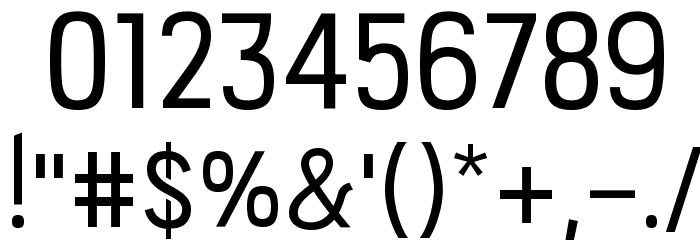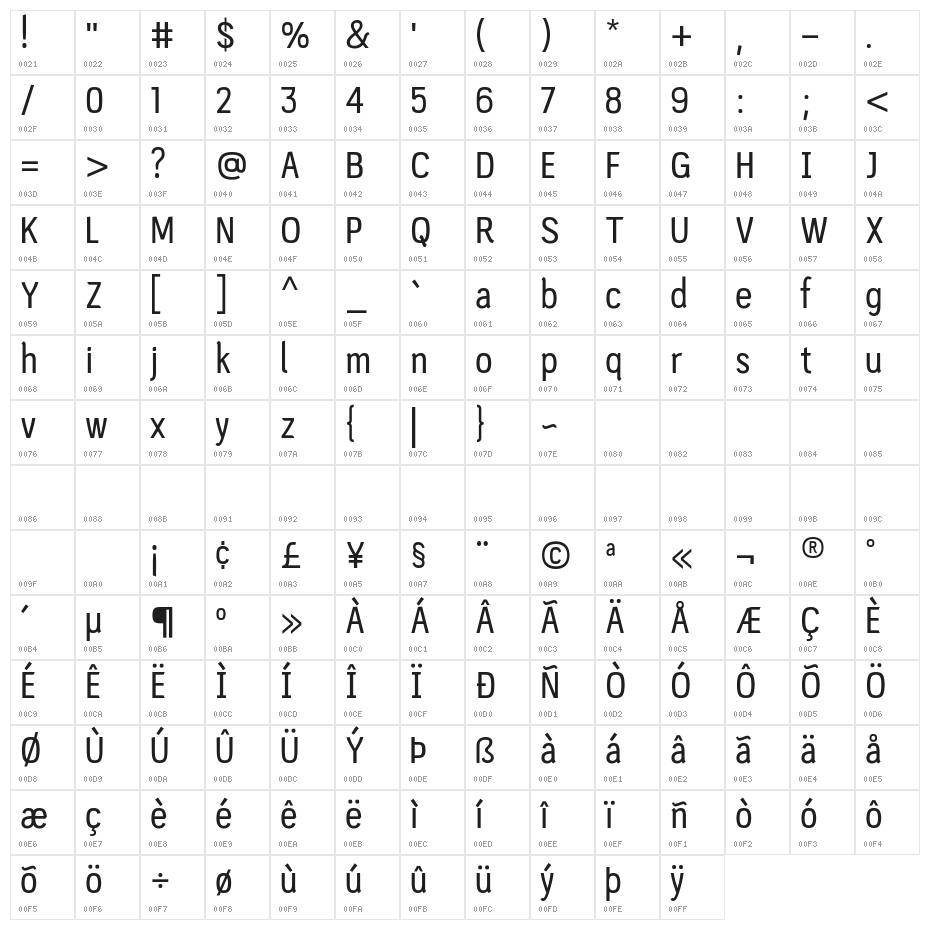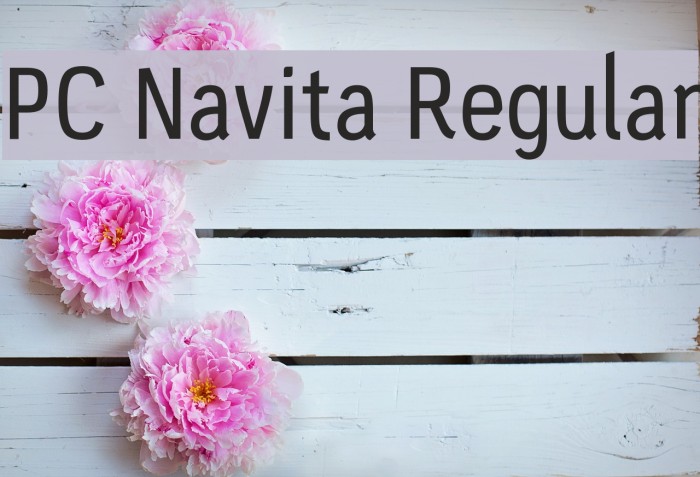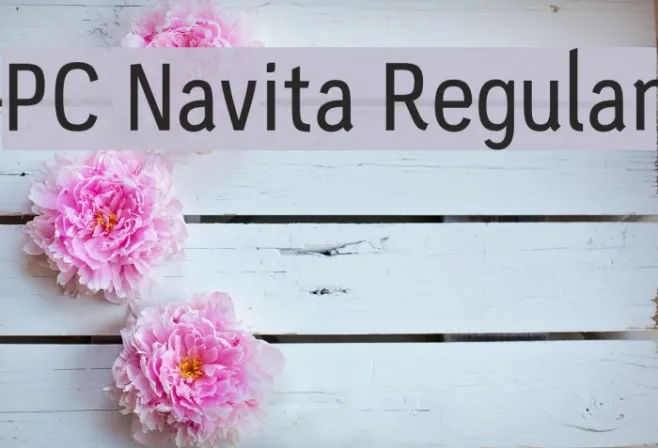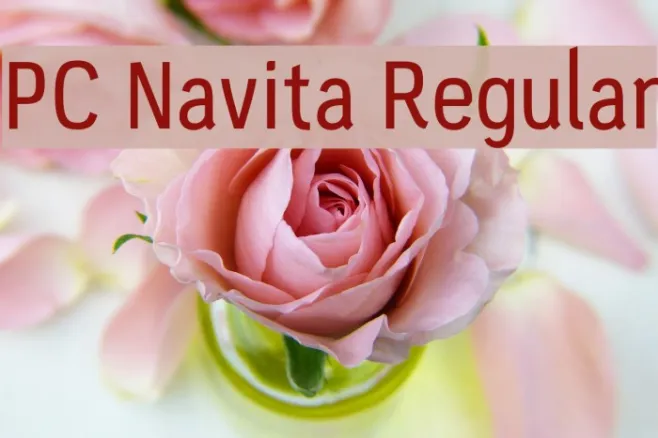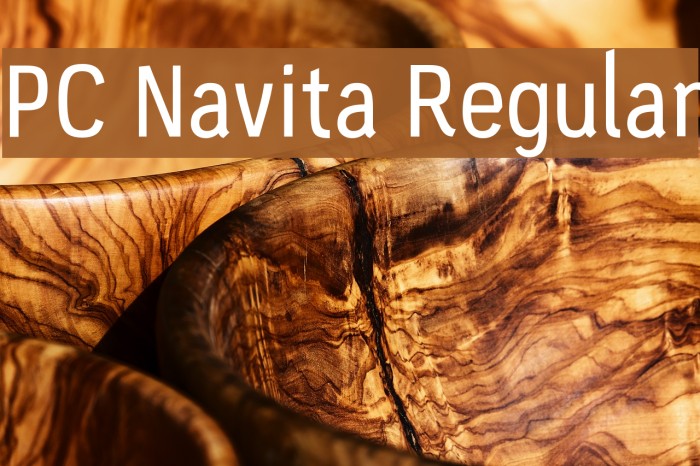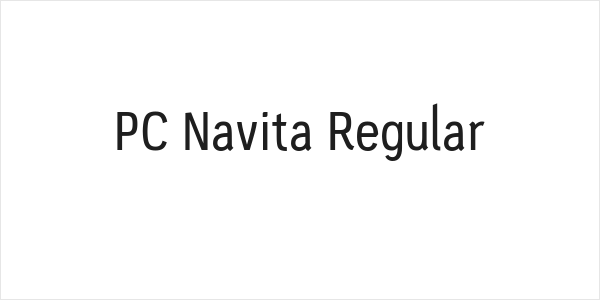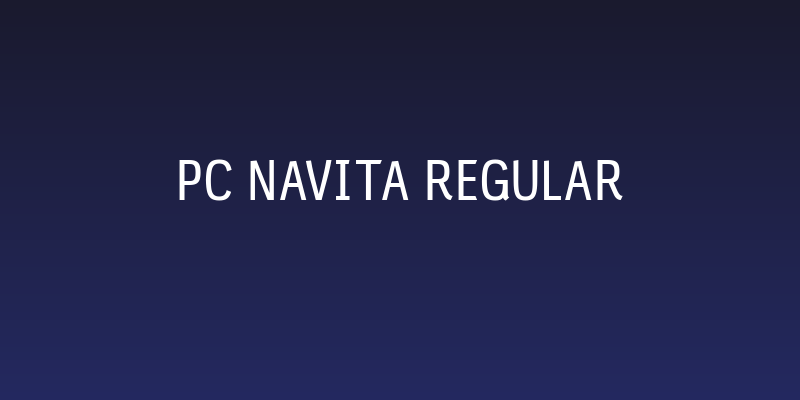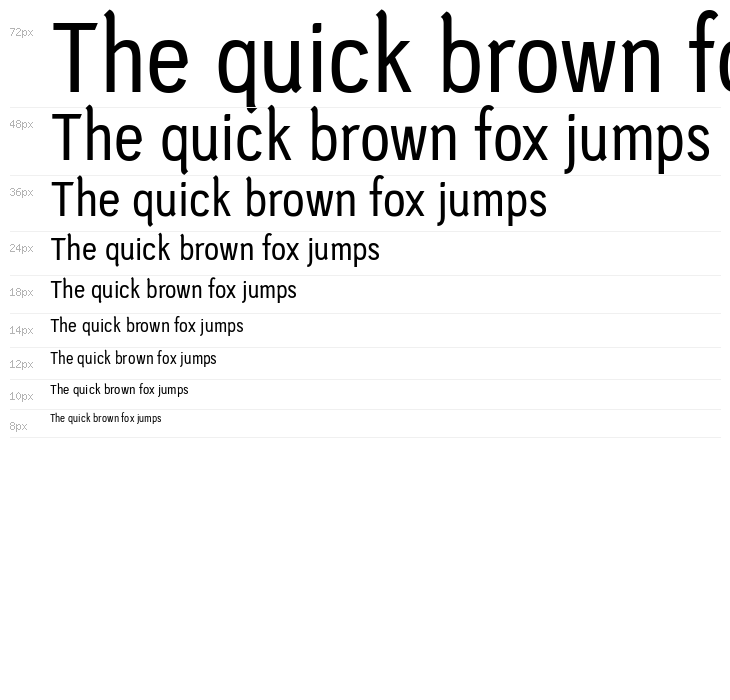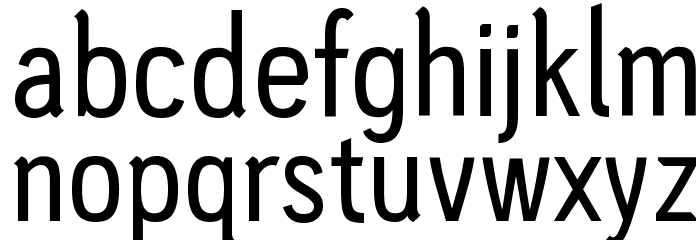
PC Navita Regular Font
PC Navita Regular Description
This font is a clean and modern sans-serif typeface characterized by its straightforward and geometric letterforms. The uppercase letters are bold and assertive, while the lowercase letters maintain a consistent and harmonious appearance. The numerals are clear and easy to read, making them suitable for various applications. The special characters are well-designed, ensuring versatility in different contexts. Overall, this typeface exudes a professional and contemporary vibe, making it ideal for digital and print media.
| Proposed Projects | Ideal for web design, corporate branding, advertising, and editorial layouts. |